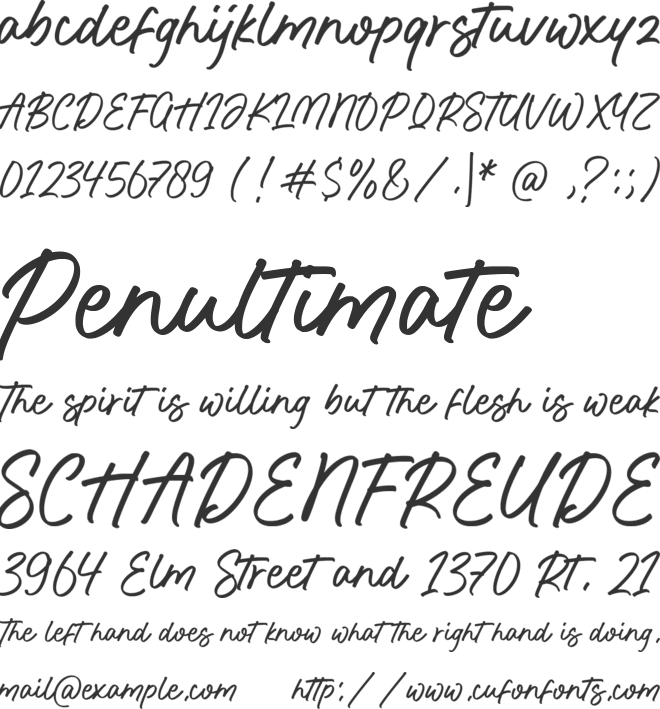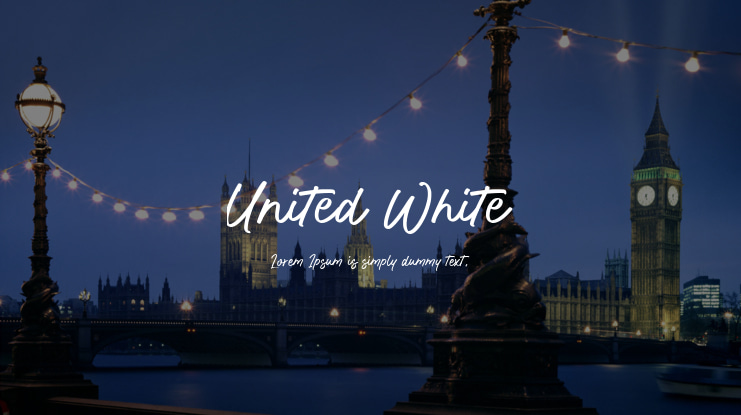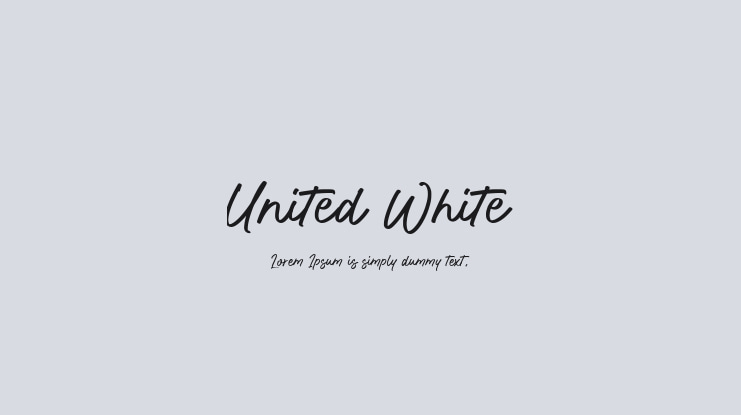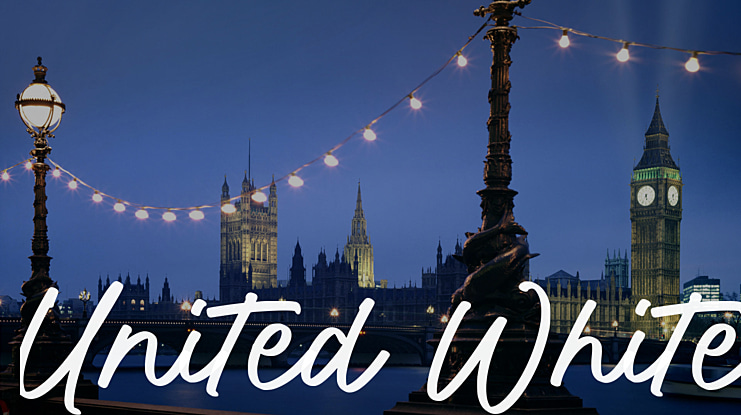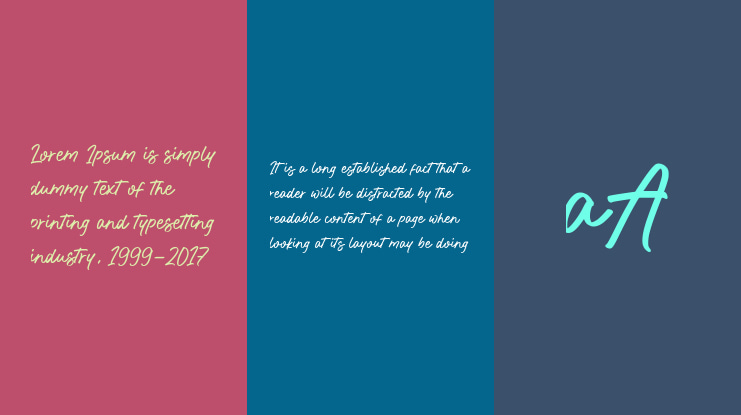
United White Font
United White is a modern handwritten typeface that's perfect for adding a personal touch to your design projects! With its natural, organic feel and unique character.
Crafted with care and attention to detail, this font is incredibly versatile and can be used for a range of design projects, including logos, branding, invitations, and more. Its modern, handwritten style gives it a unique character that's sure to make an impact.
- also multilingual support